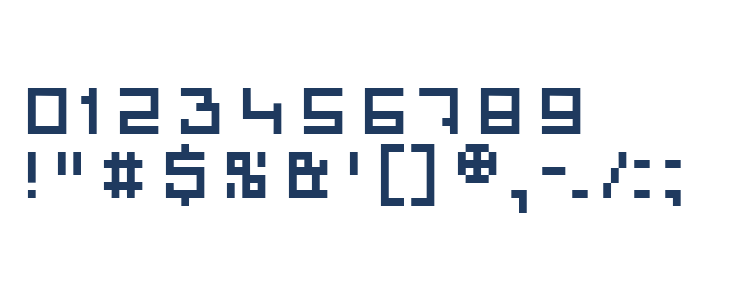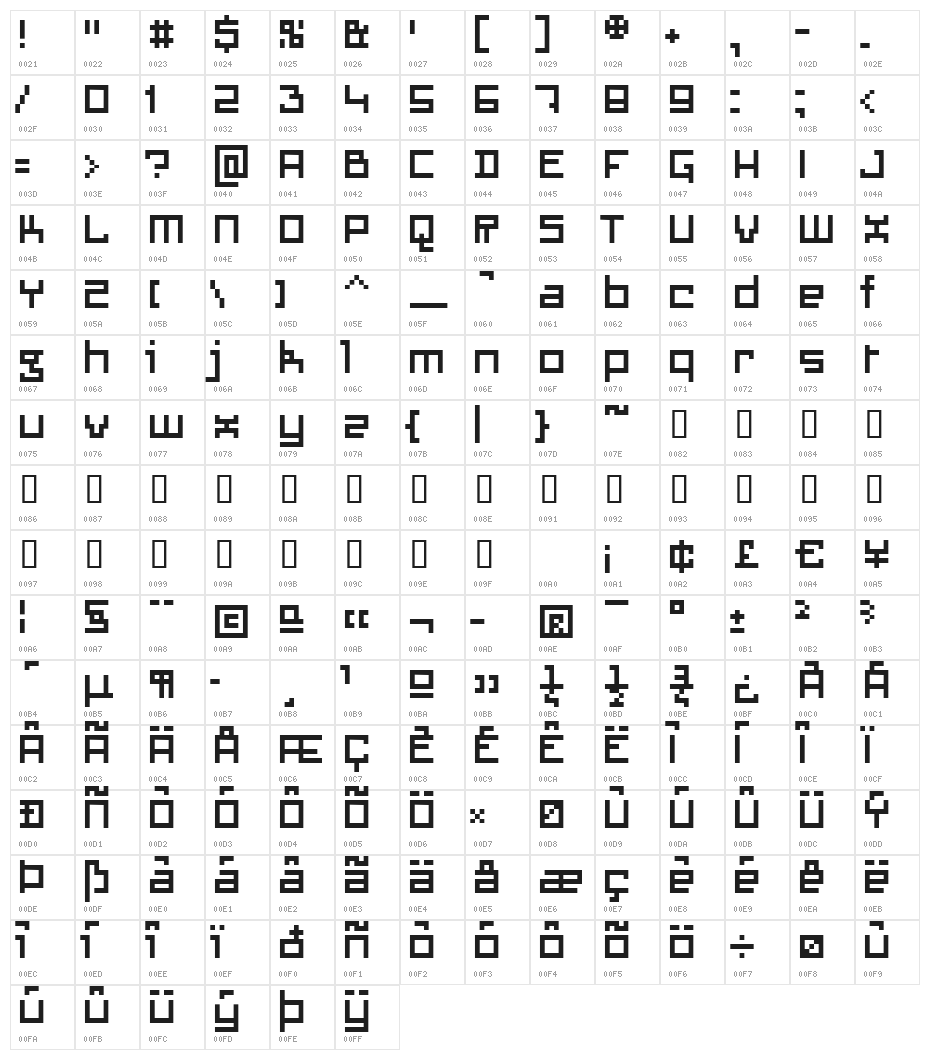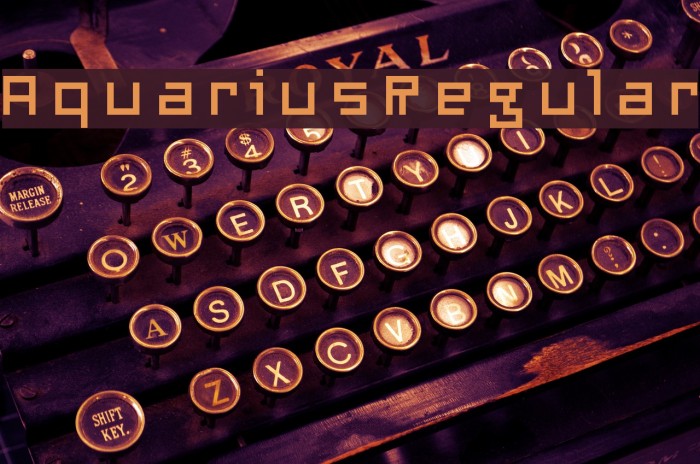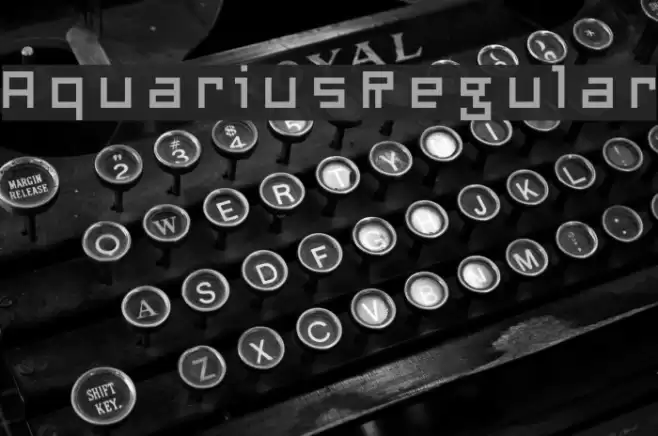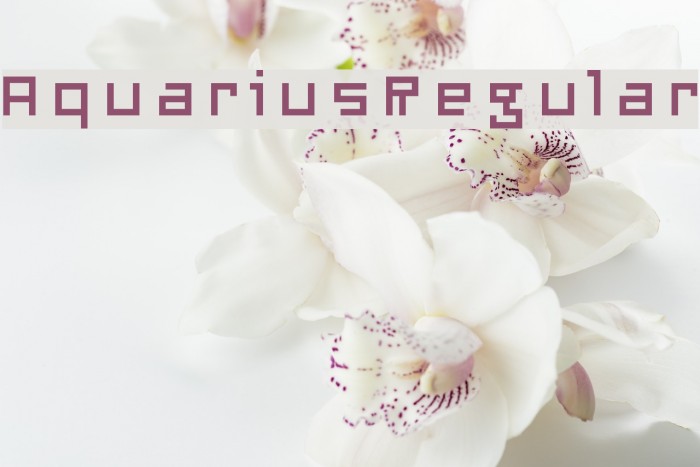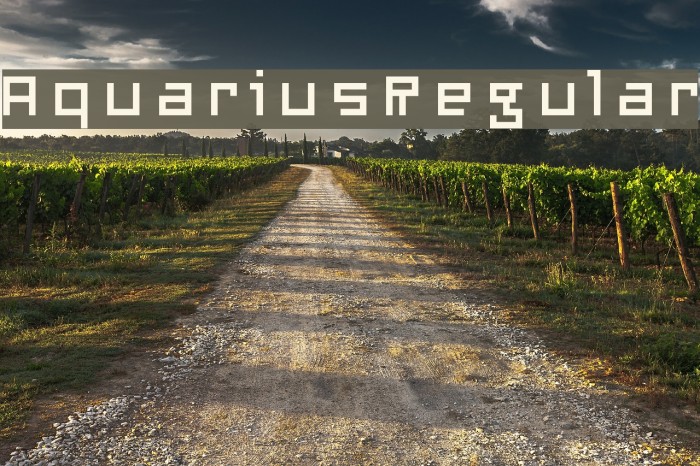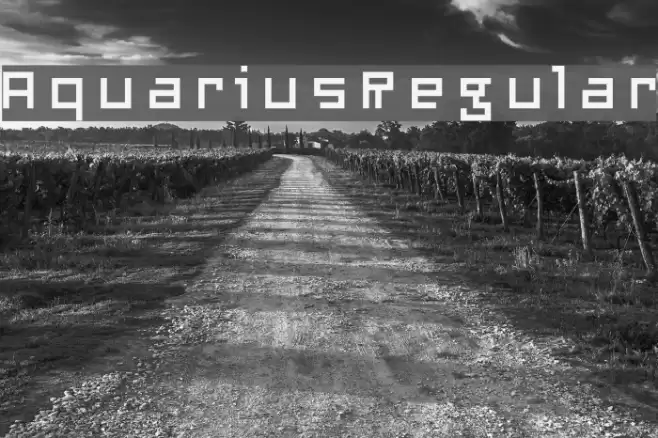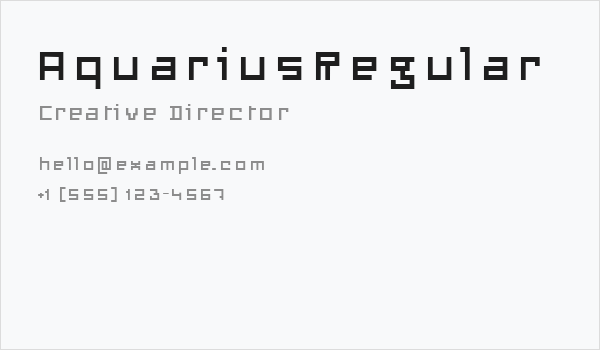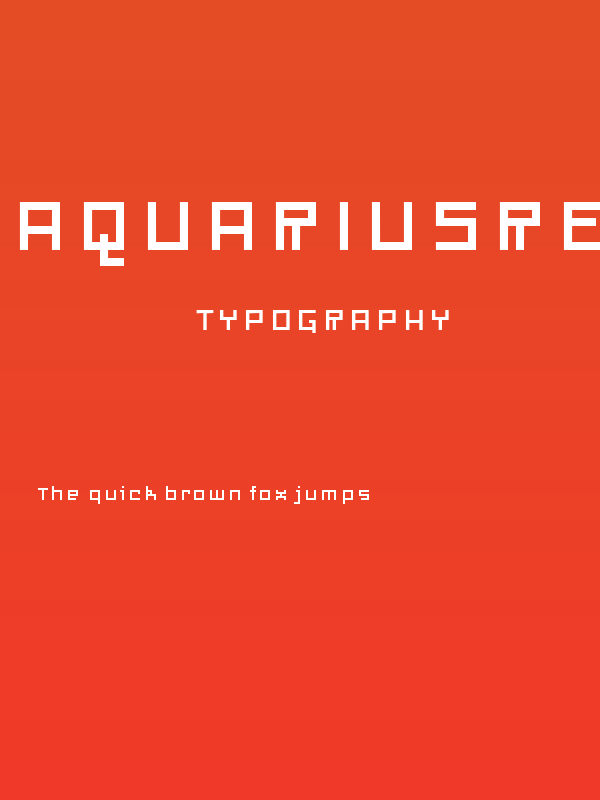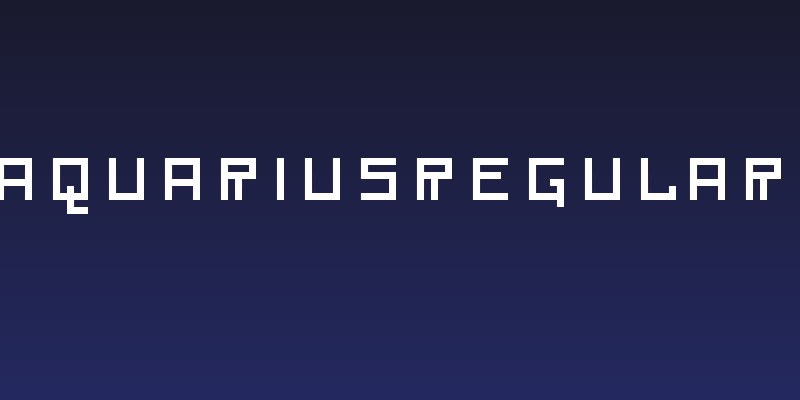
AquariusRegular Font
AquariusRegular Description
This font features a pixelated, blocky design reminiscent of early digital displays and retro video games. The characters are uniformly structured with a consistent height and width, giving it a monospaced appearance. The uppercase and lowercase letters maintain a geometric form, with sharp angles and straight lines, creating a clean and modern look. The numerals and special characters follow the same design principles, ensuring a cohesive visual style across all elements. This font is ideal for projects that require a nostalgic or tech-inspired aesthetic.
| Use Case | Logos, Headlines, Digital displays |
| Proposed Projects | Ideal for video game design, tech-themed posters, digital art projects, and retro-style branding. |